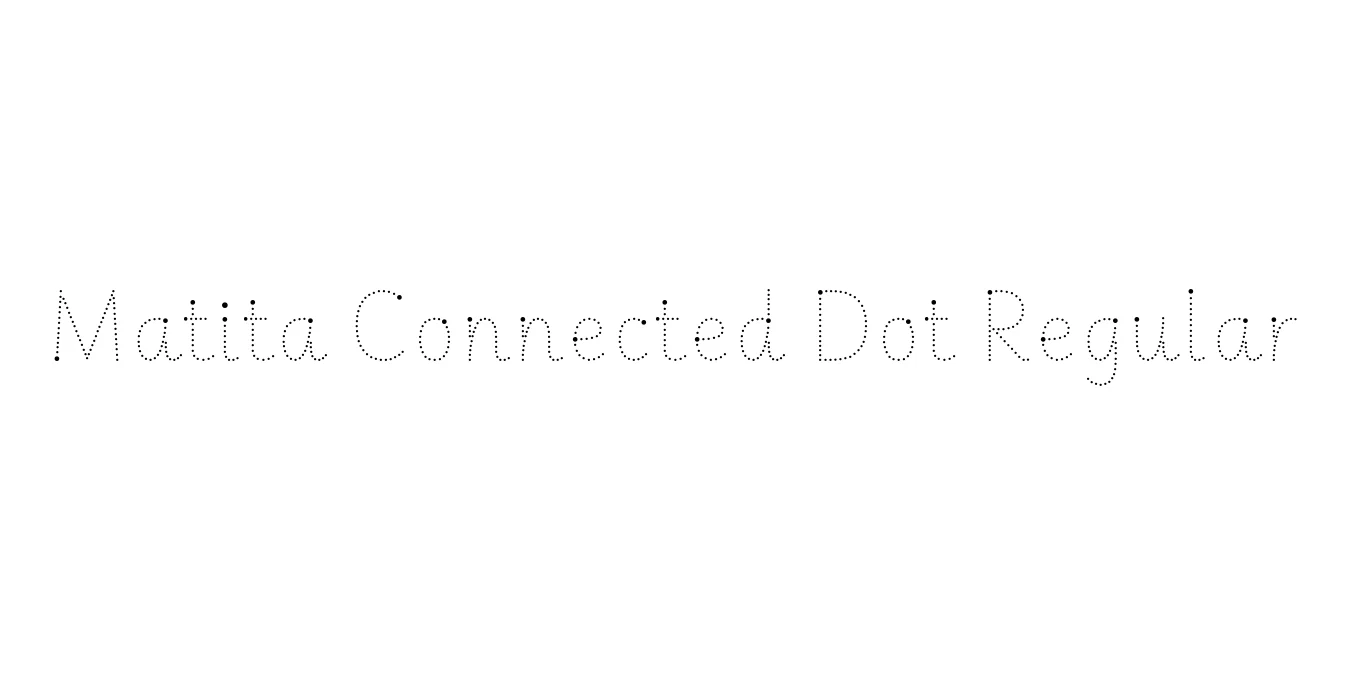
Matita Connected Dot Regular
Designed by Botio Nikoltchev, Andreas Eigendorf
Matita Connected Dot Regular is a specialized script typeface developed by the design studio Lettersoup. Designed specifically by Botio Nikoltchev and Andreas Eigendorf, this font is a core component of the broader Matita family, which was built to meet modern pedagogical standards. It features a dotted skeletal structure that acts as a guide for tracing, making it an invaluable resource for early childhood education and literacy development.
The typeface mimics a natural cursive handwriting flow while maintaining strict geometric clarity to ensure legibility. Because it is part of a larger system of fonts including solid and ruled versions, Matita Connected Dot Regular allows educators to create progressive learning materials. Its design philosophy centers on the transition from letter recognition to fluid, connected writing, bridging the gap between digital typesetting and traditional penmanship.
Matita Connected Dot Regular Best Uses
Ideal for creating tracing workbooks and handwriting guides for young students.
Perfect for primary school textbooks and instructional literacy materials.
Excellent for customizable practice sheets used in homeschooling and classrooms.